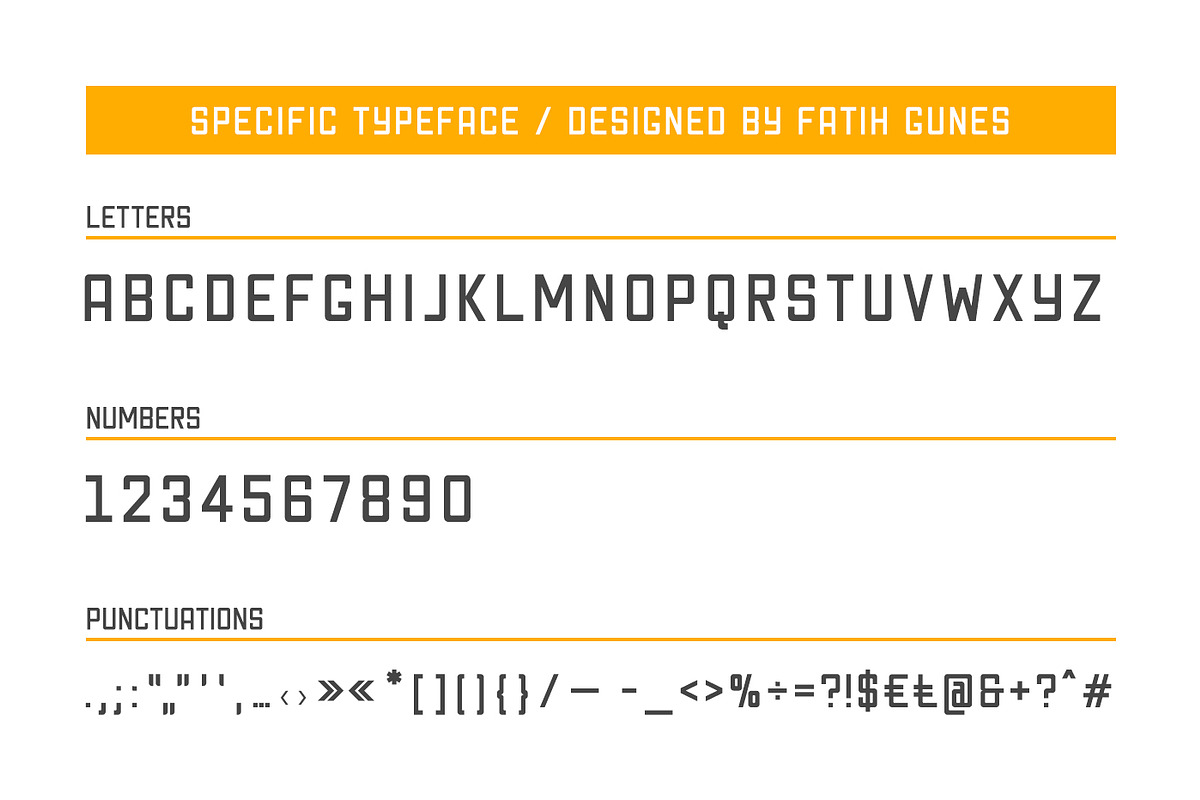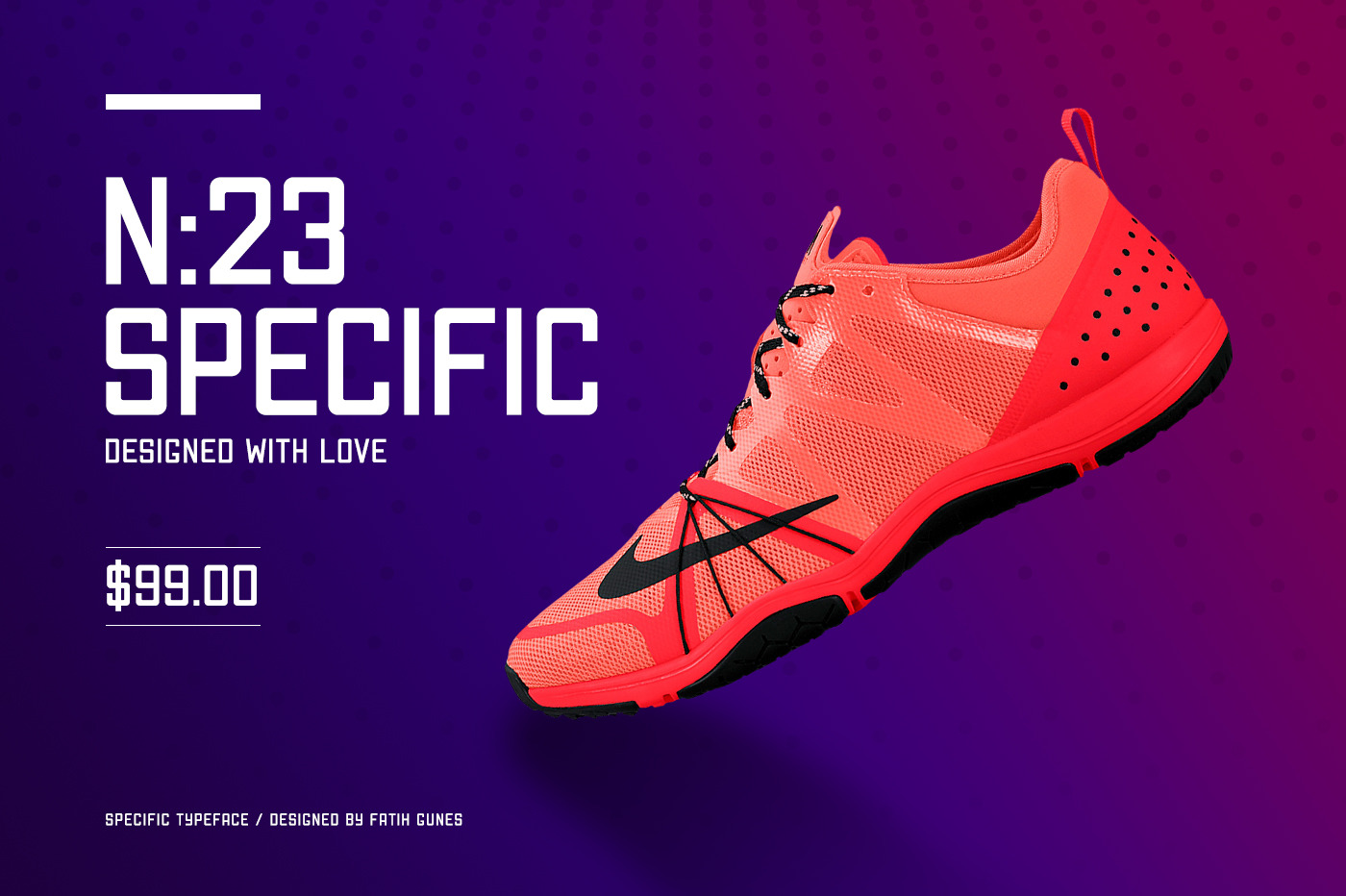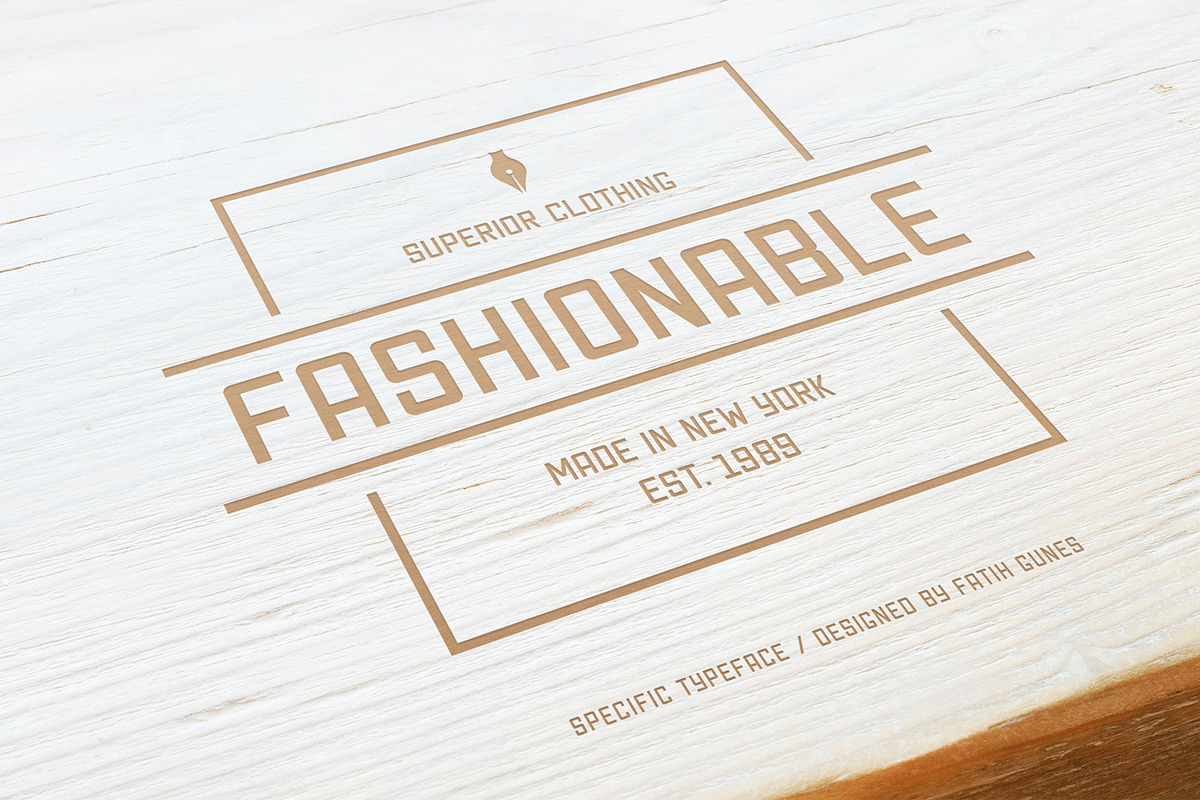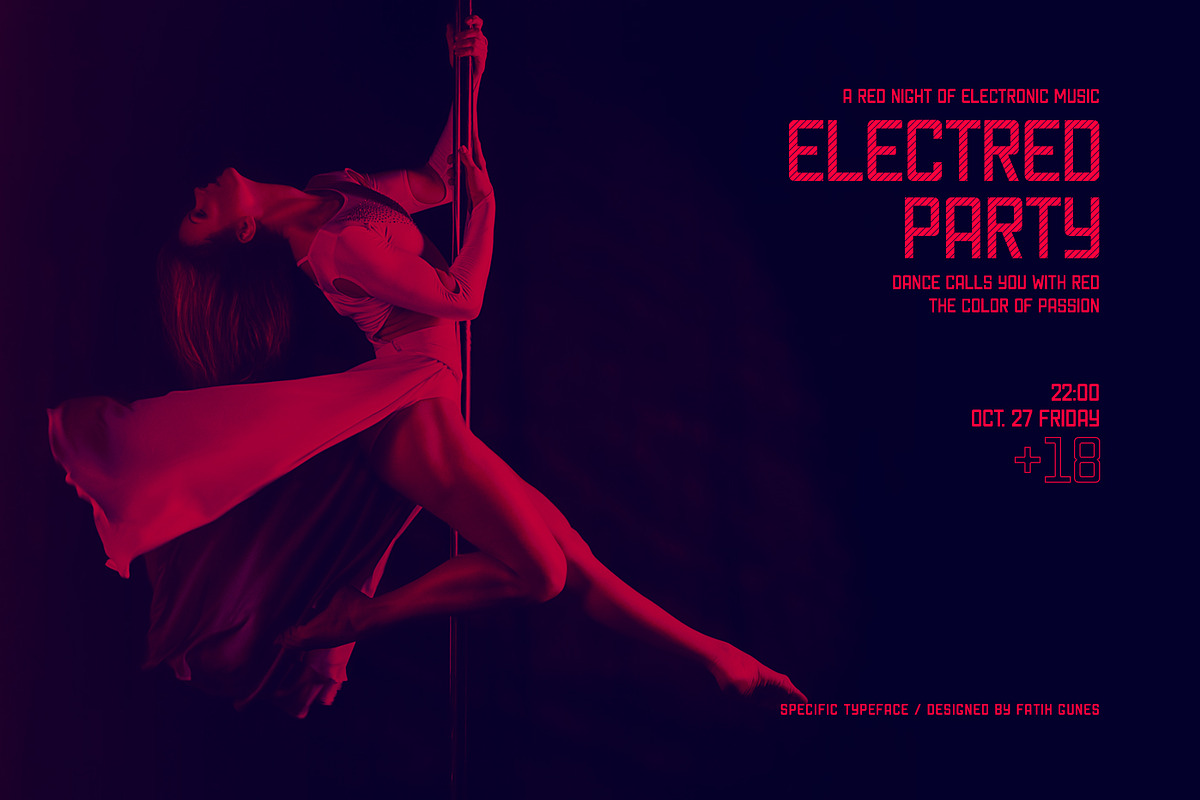
Specific Typeface
SPECIFIC TYPEFACE
It has a higher uppercase structure than the normal ones. It has a condensed, rounded and squared character. It is a typeface which you can use in posters, packagings, newspaper & magazine ads, logos, banners, promo images & soccer uniforms.
- All Capital Letters
- Basic Latin
- Condensed
- Rounded
- Squared